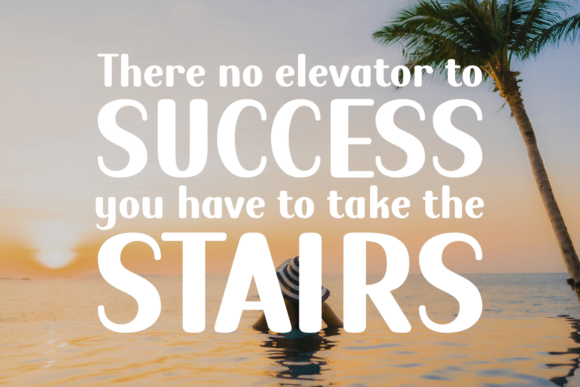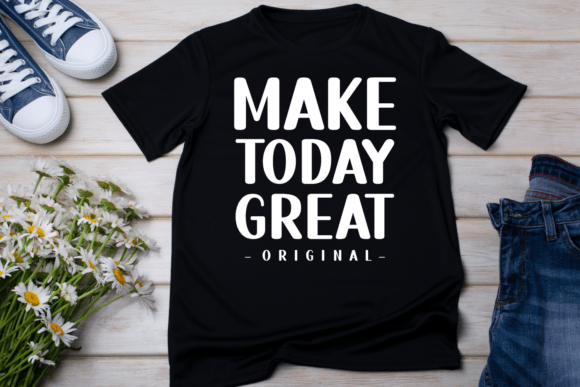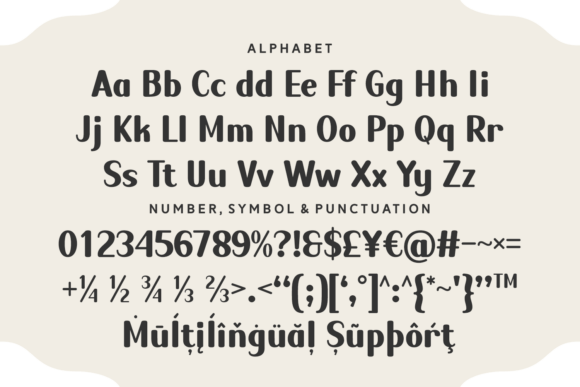
Introduction to Great Mindset Font
Great Mindset is a bold yet friendly sans serif font that combines rounded edges with confident strokes.
Its playful elegance makes it suitable for modern branding, motivational quotes, social media graphics, packaging, and editorial layouts Designed for both readability and personality, Great Mindset brings a positive, approachable vibe to any project while keeping a professional edge.
Key Features of Great Mindset Font
Why Choose Great Mindset Font?
Great Mindset Font offers exceptional quality and versatility, making it a valuable addition to your design toolkit. Whether you’re creating for personal projects or commercial use, Great Mindset Font delivers professional results.